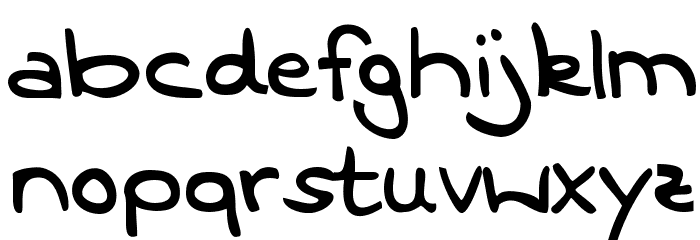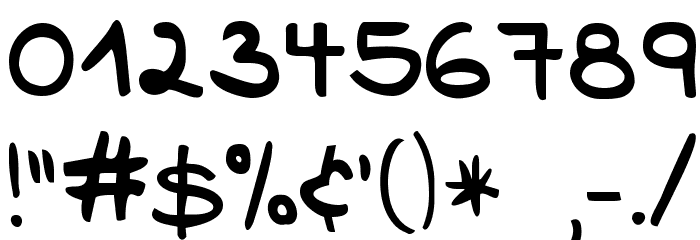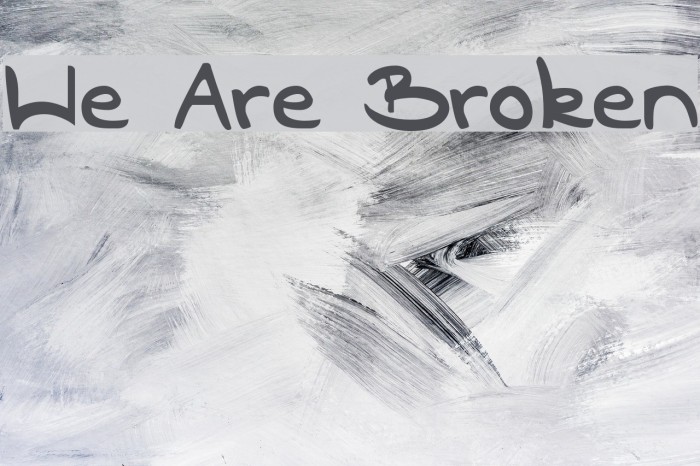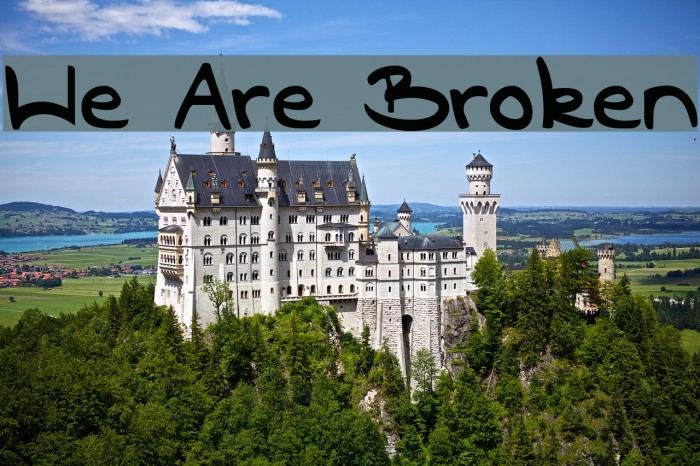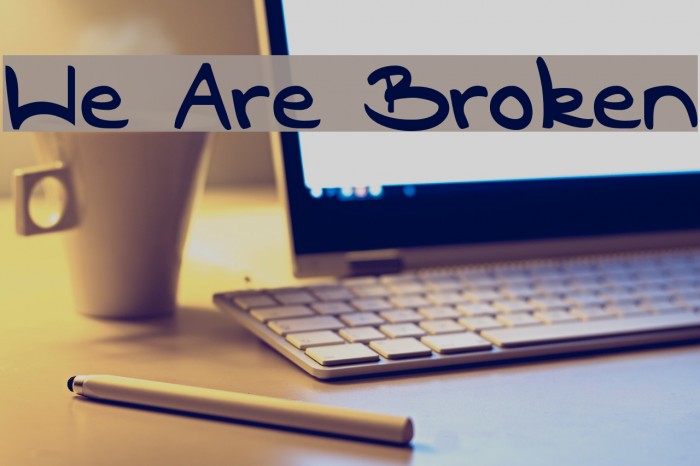
We Are Broken Font
This font features a playful and casual handwritten style, characterized by its rounded and slightly irregular letterforms. The strokes are smooth and consistent, giving it a friendly and approachable appearance. The uppercase and lowercase letters maintain a cohesive look, with a slight slant that adds to its informal charm. The numerals and special characters are designed to match the overall style, ensuring uniformity across all glyphs. This font's unique personality makes it suitable for projects that require a touch of whimsy and creativity.
A playful, casual handwritten font with rounded, smooth strokes.
- Proposed Projects: Ideal for children's books, greeting cards, playful branding, and social media graphics.
- Category: Handwritten
- Overall Style: Casual, Playful
- Use Case: Headlines, Informal text, Branding